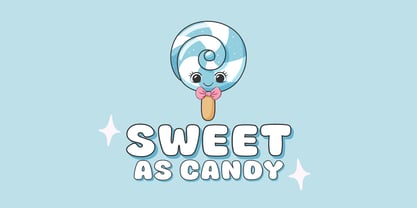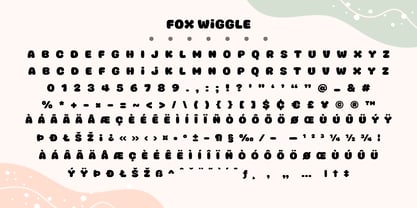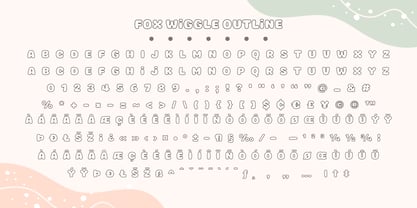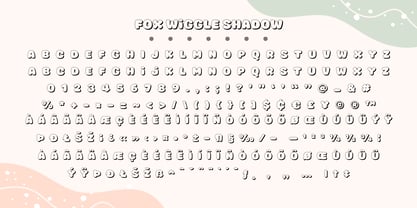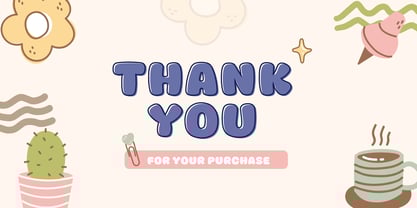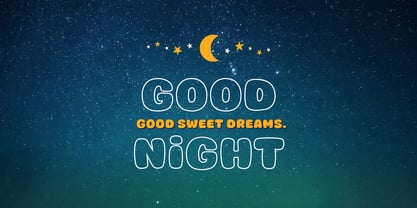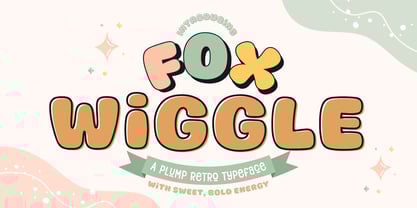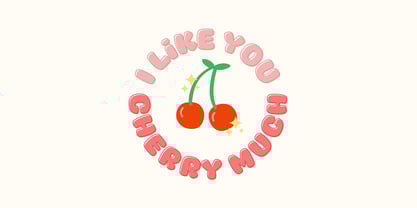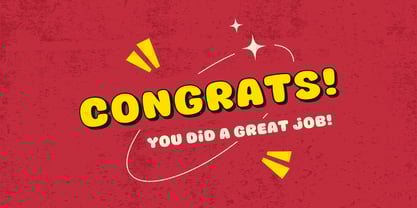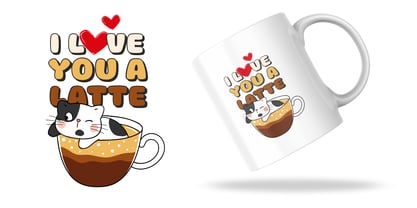
Fox Wiggle
by Fox7
The Fox Wiggle Font Family was designed by Rattana Rattanawan and published by Fox7. Fox Wiggle contains 3 styles and family package options.
Fox Wiggle – A Plump, Retro Fun Typeface (3 Styles)
Say hello to Fox Wiggle – a bouncy, bubbly display font with sweet retro flair and bold energy! This playful typeface comes in 3 styles: Regular, Outline, and Shadow, giving you everything you need to mix, match, and create eye-catching designs with charm and personality.
Fox Wiggle is inspired by retro cartoons and vintage candy packaging – think plump letterforms, quirky shapes, and a fun-loving vibe that doesn't take itself too seriously. Whether you're designing for kids, crafts, or funky branding, this font will bring your message to life with a cheerful wiggle!
Let Fox Wiggle add a joyful retro twist to your next project. Mix styles, layer colors, and let your creativity wiggle free!